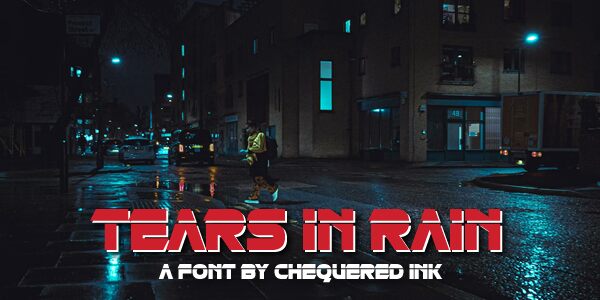
Tears in Rain
Tears in Rain, crafted by Chequered Ink, is a captivating display font that encapsulates the essence of a futuristic world. With its bold weight and expanded width, this font exudes confidence and demands attention. Its unique design makes it ideal for projects that require a touch of innovation and imagination. Use Tears in Rain to create striking logos, eye-catching headlines, or stunning posters. This versatile font is perfect for sci-fi movie titles, gaming websites, tech blogs, or any project where you want to evoke a sense of the extraordinary. Unleash your creativity with Tears in Rain!